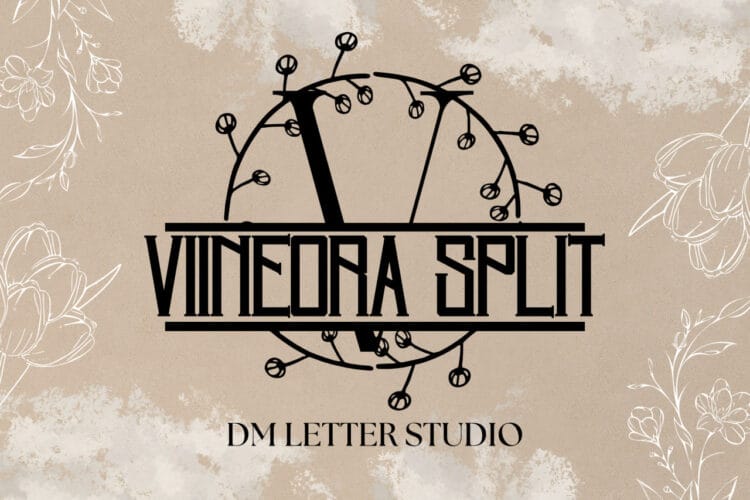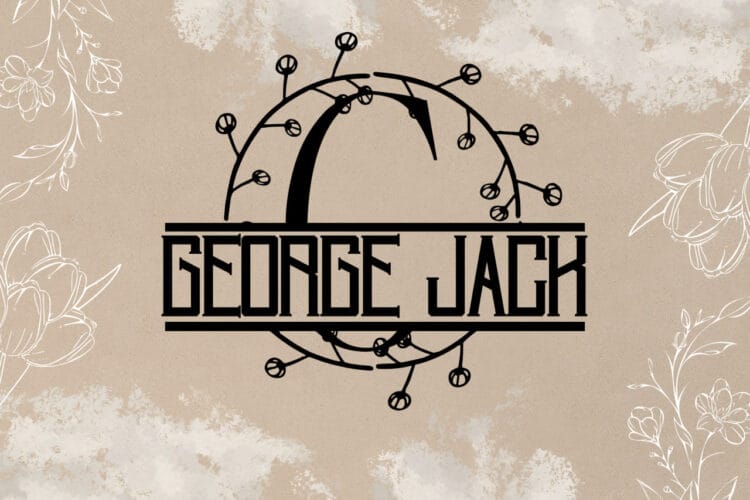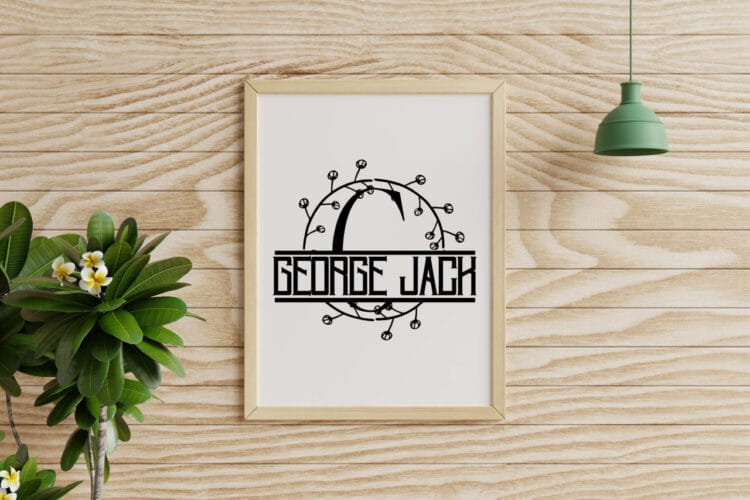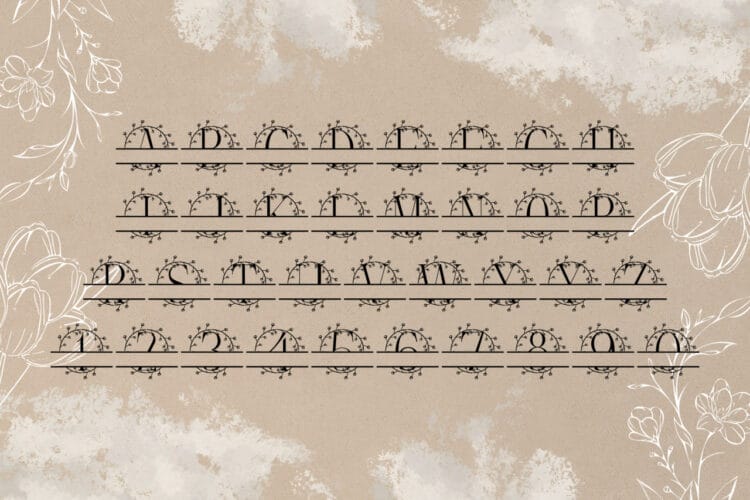
Meet Vineora Split, the Split Monogram Font
Vineora Split Monogram Font turns simple initials into elegant vine-inspired emblems with a clean center split for names, dates, or short words. The strokes feel handcrafted, yet the structure stays balanced, so letters read clearly at any size. Because counters remain open and curves stay smooth, tiny tags print crisp while large signage looks graceful and premium. Use it for wedding suites, boutique logos, keepsake gifts, wax seals, stationery, and luxury packaging. As a result, your designs feel personalized and botanical without extra effort.
Fast layouts with Vineora Split
Start with a bold split initial, then place a name, family title, or date across the center bar. After that, add supporting text in a soft serif or a neat humanist sans. Because Vineora Split holds shape at small sizes, cards, cartons, acrylic signs, and tags print cleanly and cut smoothly. In addition, the proportions pair beautifully with wreath frames, laurel rings, oval borders, and vine or foliage accents, so full sets come together in minutes. Finally, save palette pairs like sage & ivory, olive & cream, blush & cocoa, or champagne & charcoal to repeat across your product line.
Creative uses and quick wins
Logo badges, shop marks, and product seals
Wedding monograms, place cards, and table numbers
Wax seals, ribbon tags, and keepsake boxes
Favor stickers, tissue labels, and thank-you cards
Split monogram initials built for quick personalization
Curves tuned for foil, letterpress, engraving, laser, vinyl, DTF, and sublimation
Design tips for Vineora Split Monogram Font
Keep the center text short so the initial stays the hero. Also, increase tracking slightly for names on small labels to improve readability. For extra depth, add a thin inner stroke or a soft shadow behind the monogram. For texture, try linen stocks, vellum wraps, or pearl papers. Finally, export at 300 DPI for print and at 2× size for web, so edges stay smooth everywhere.